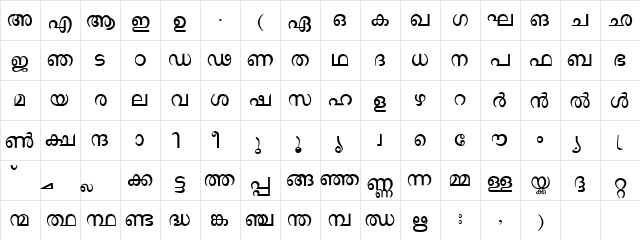
Jacobsml Normal
Design Context for Jacobsml Typeface
Jacobsml offers clean, dependable letterforms without strong stylistic allegiance, making it a practical choice for designers who need flexibility.